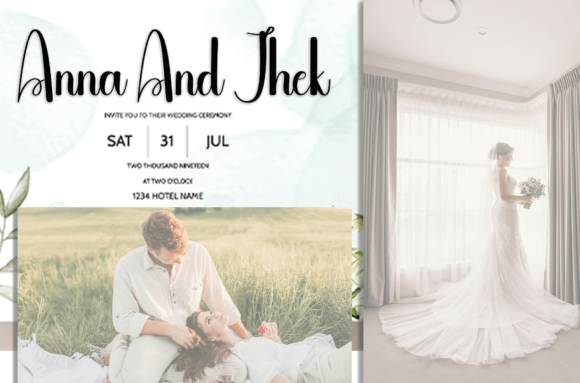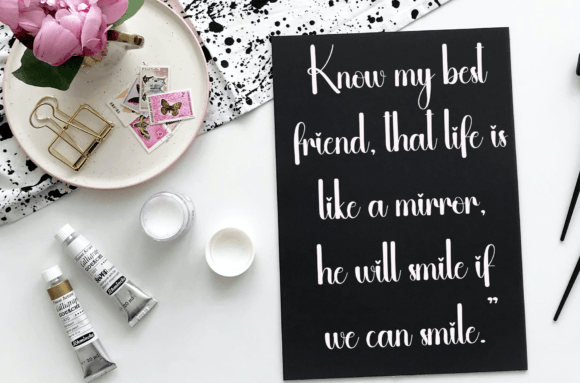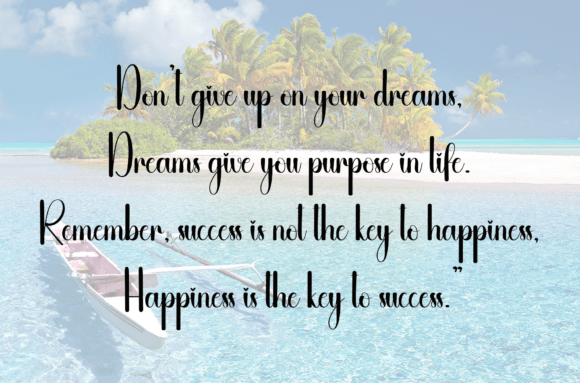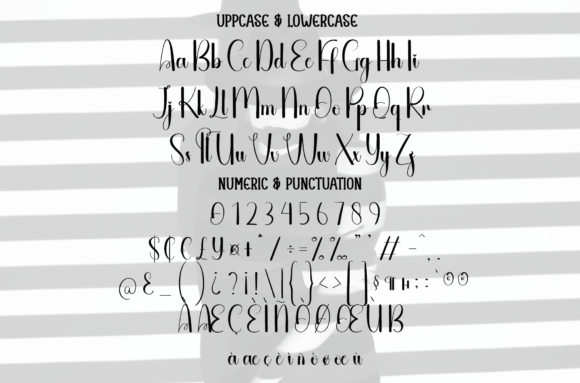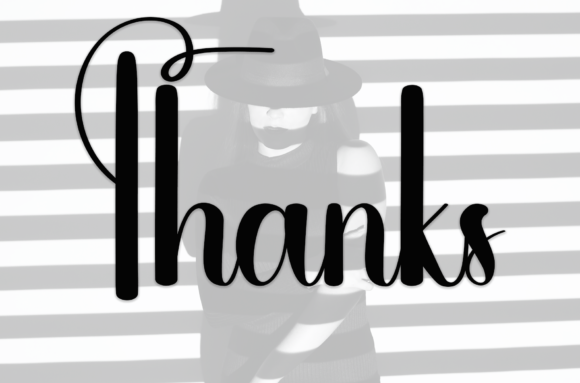
Introducing Blackline Font: The Sweet and Friendly Handwritten Font for Your Creative Projects
Are you looking for a font that can add a touch of warmth and personality to your designs? Look no further than Blackline Font, a sweet and friendly handwritten font that’s perfect for a variety of creative projects. In this article, we’ll take a closer look at Blackline Font, its features, and how you can use it to elevate your designs.
What is Blackline Font?
Blackline Font is a beautiful, handwritten font that’s fresh, neat, and full of character. Its sweet and friendly vibe makes it an ideal choice for designs that require a personal touch. Whether you’re creating wedding invitations, greeting cards, or any other type of design that needs a fun and playful twist, Blackline Font is the perfect choice.
Key Features of Blackline Font
- Handwritten style: Blackline Font has a beautiful, handwritten style that’s perfect for adding a personal touch to your designs.
- Fresh and neat: The font is clean, fresh, and neat, making it easy to read and perfect for a variety of design projects.
- Sweet and friendly vibe: Blackline Font has a warm and inviting personality that’s sure to make your designs stand out.
- Versatile: This font is versatile and can be used for a variety of design projects, from wedding invitations to social media graphics.
How to Use Blackline Font in Your Designs
Blackline Font is easy to use and can be incorporated into a variety of design projects. Here are a few ideas to get you started:
- Wedding invitations: Blackline Font is perfect for creating beautiful, custom wedding invitations that reflect the couple’s personality.
- Greeting cards: Use Blackline Font to create custom greeting cards for birthdays, holidays, and other special occasions.
- Social media graphics: Add a personal touch to your social media graphics with Blackline Font.
- Branding and packaging: Use Blackline Font to create custom branding and packaging that reflects your brand’s personality.
Blackline Font is a beautiful, handwritten font that’s perfect for adding a personal touch to your designs. Its sweet and friendly vibe makes it an ideal choice for wedding invitations, greeting cards, and other design projects that require a fun and playful twist. With its versatility and ease of use, Blackline Font is a great addition to any designer’s toolkit.